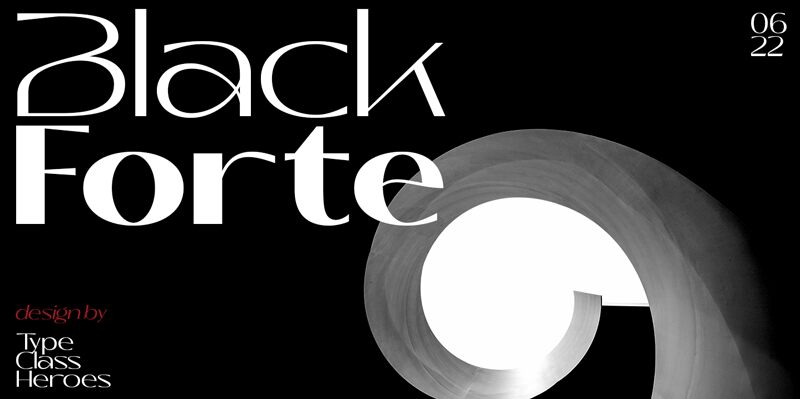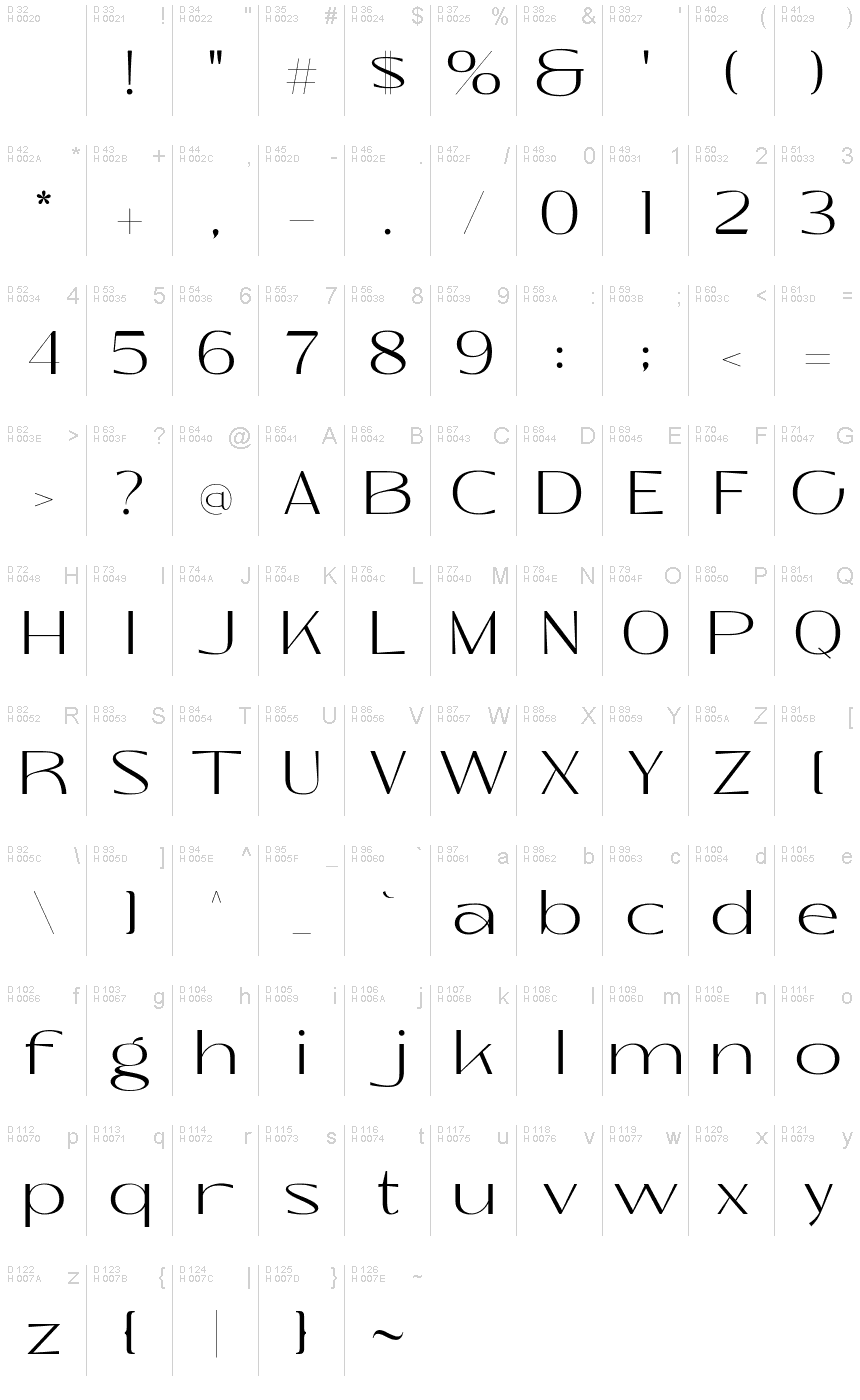
Black Forte Demo Thin
Black Forte Thin, a sophisticated member of the Black Forte font family, offers a distinct visual experience with its semi-light weight and expanded width. Crafted by the innovative minds at TypeClassHeroes, this sans serif typeface marries clarity with style, striking an impressive balance between modern minimalism and functional elegance.
The font's expanded character set exudes a sense of openness and grace that is immediately appealing to the eye. Its semi-light weight contributes to an airy, yet assertive presence on the page or screen, making it highly versatile for various creative projects. From sleek branding initiatives to immersive digital experiences, Black Forte Thin is poised to elevate design aesthetics with its clean lines and contemporary flair.
Whether employed in headlines that demand attention or text blocks that require legibility at smaller sizes, Black Forte Thin stands out as an adaptable choice for designers seeking a typeface with both character and readability.